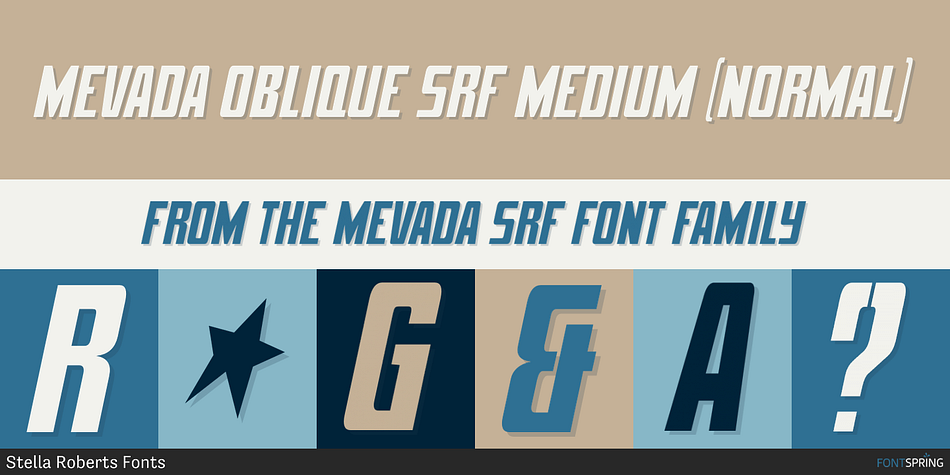
MEVADA OBLIQUE SRF MEDIUM (NORMAL)
Mevada SRF is a display font family. This typeface has two styles and was published by Stella Roberts Fonts.
Mevada SRF and its oblique partner are a remix of the Ray Larabie design Devama SRF, another exclusive from Stella Roberts Fonts.